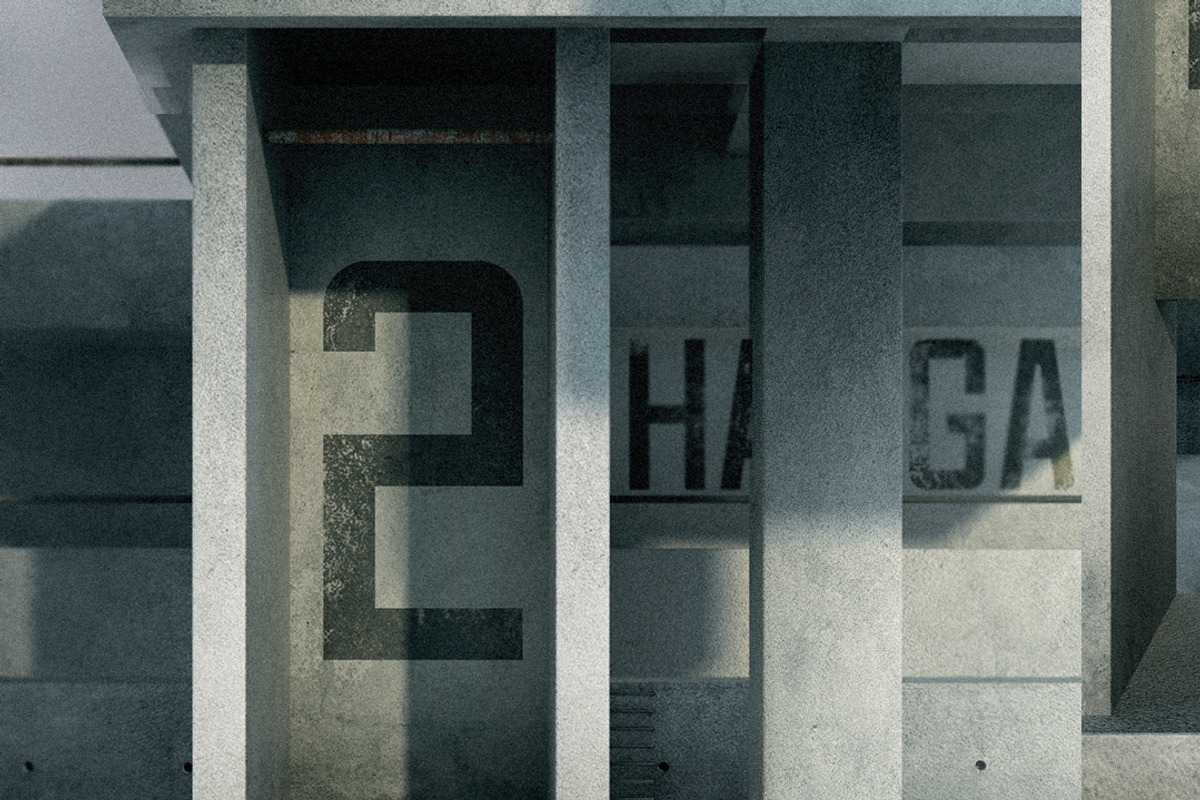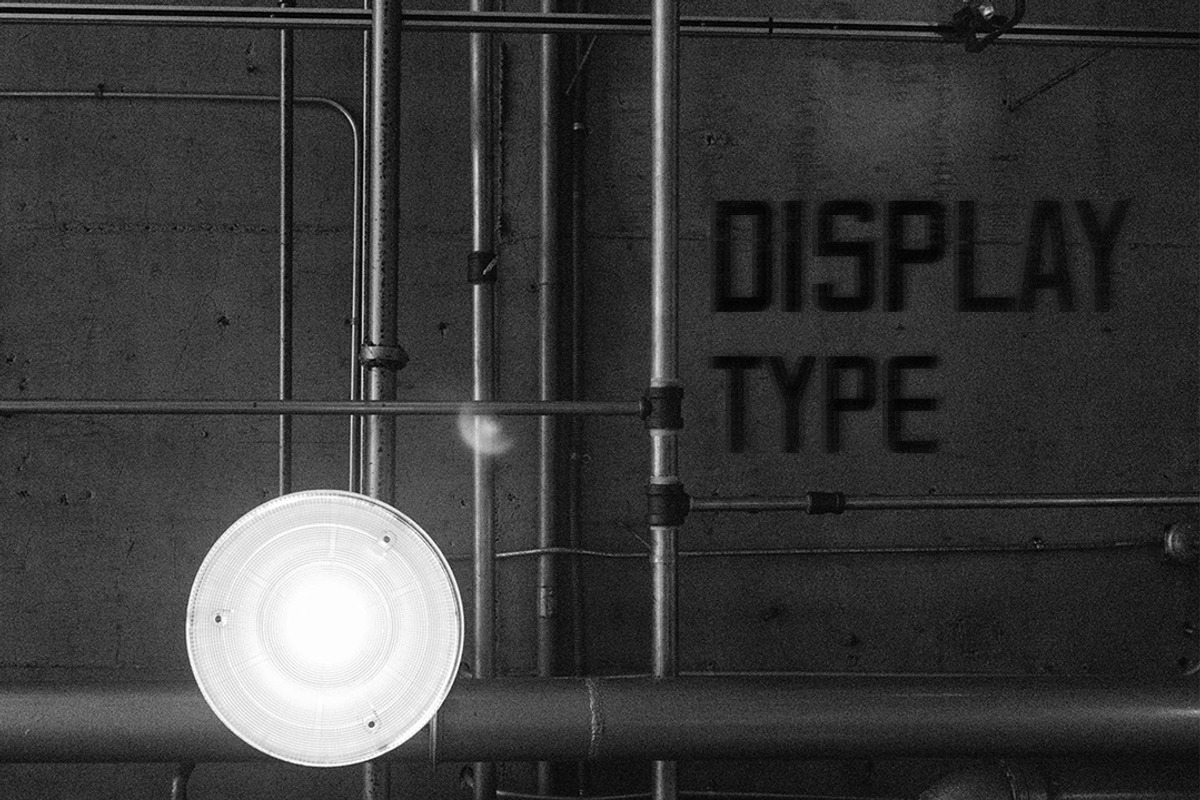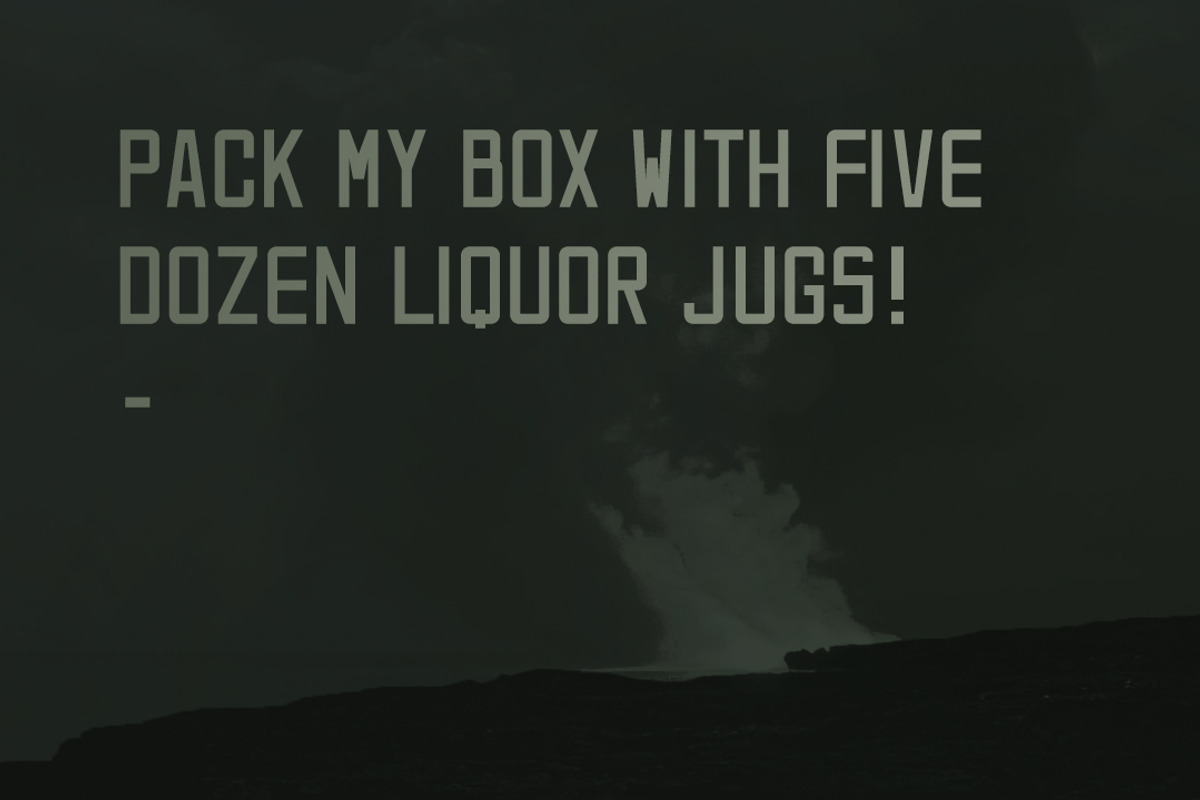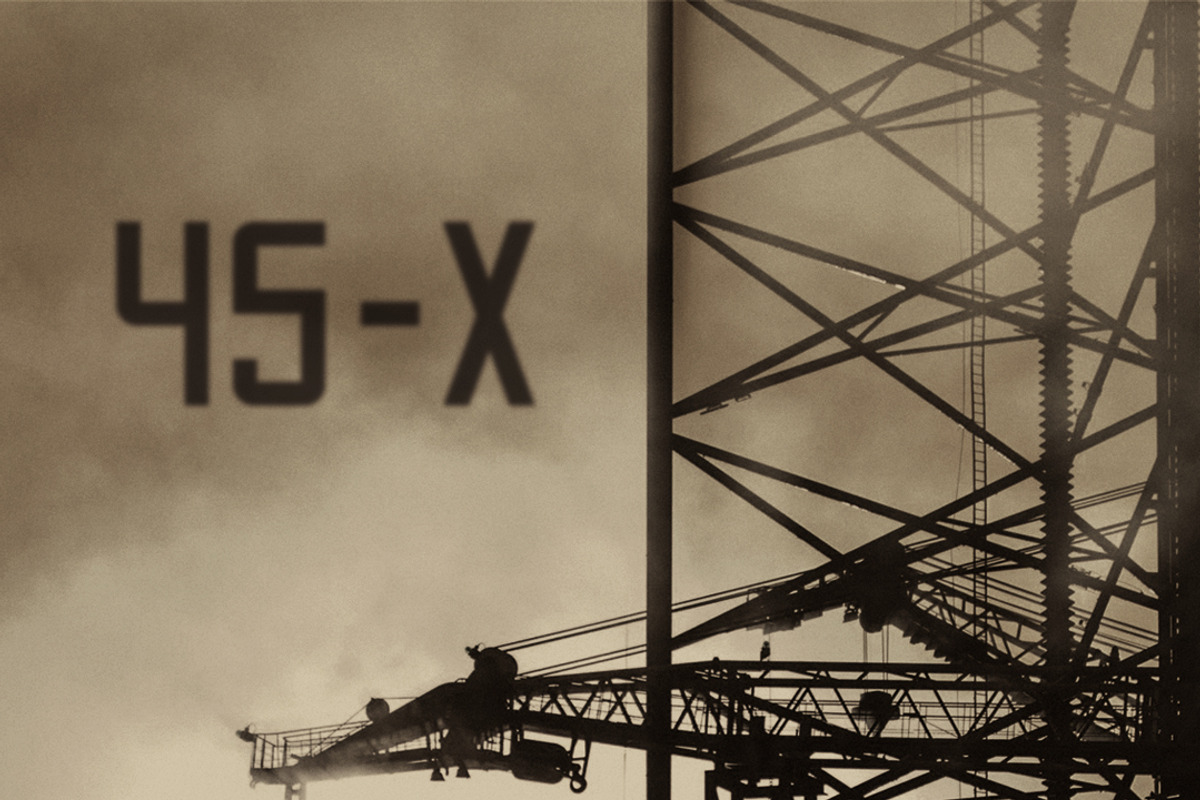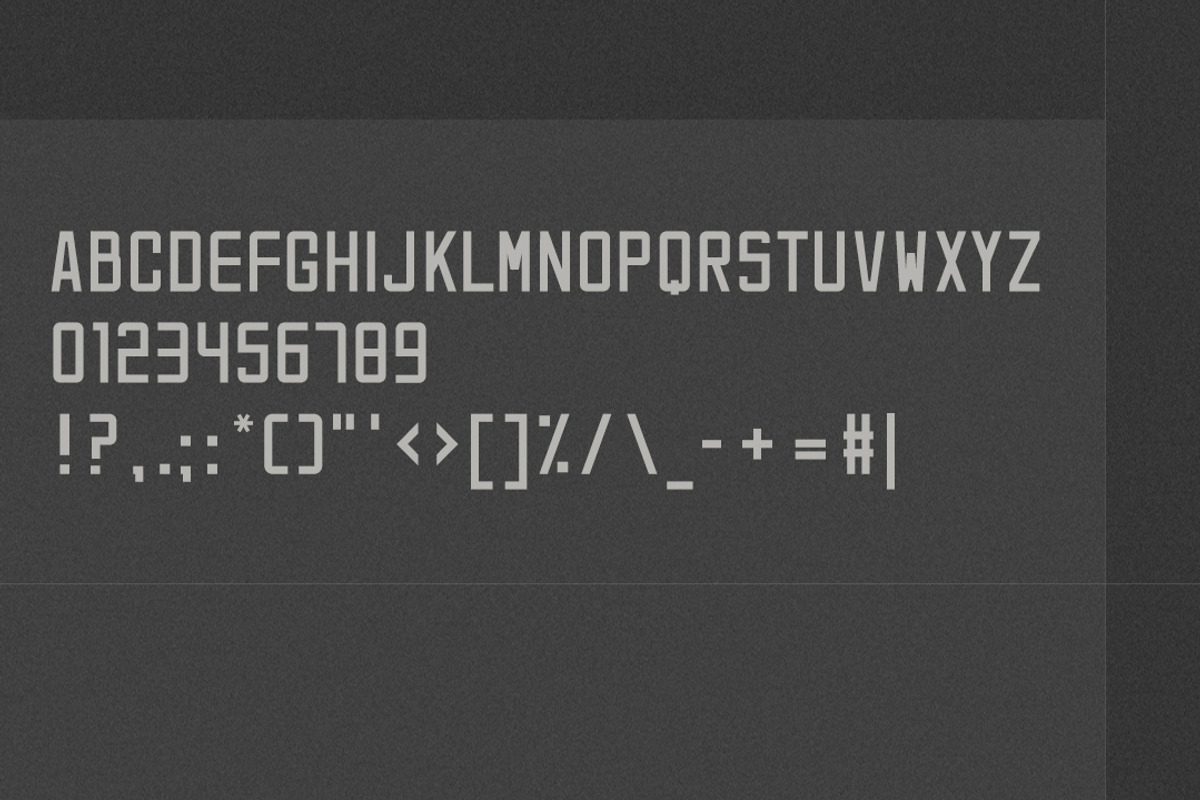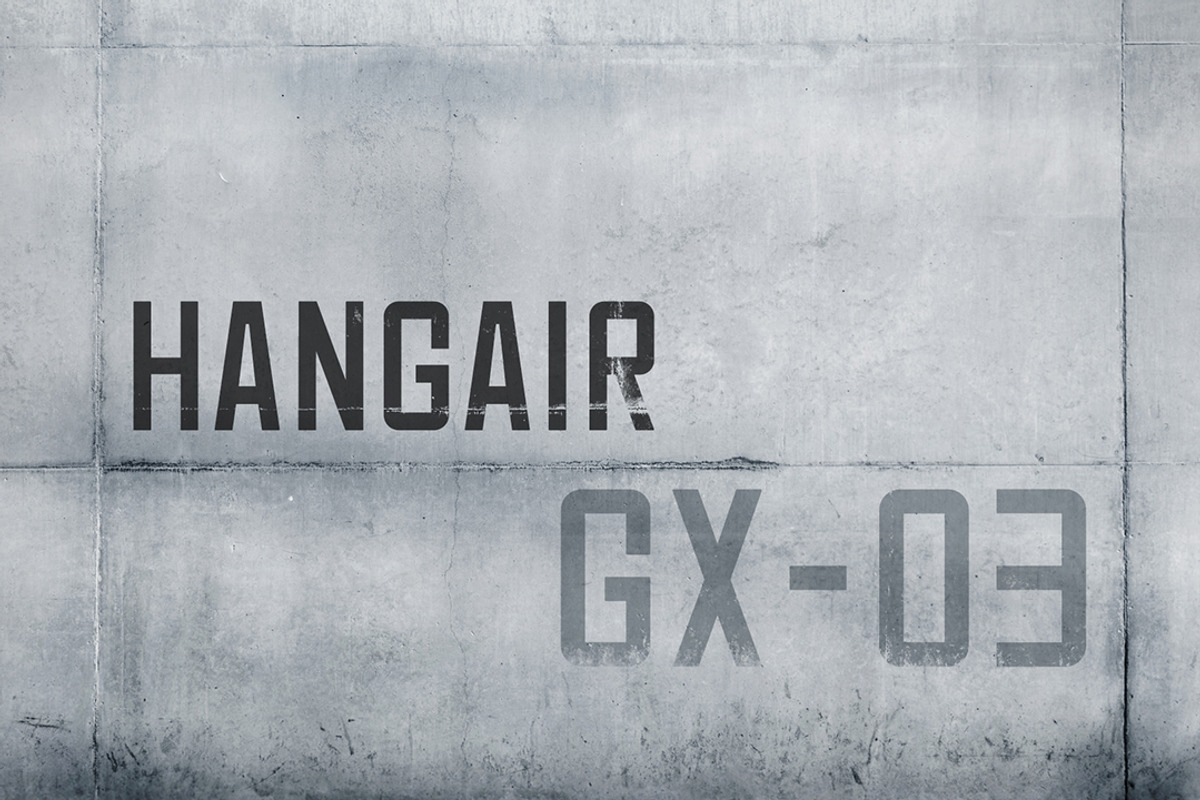
Hangair Font
Hangair is an upper case display type which has been meticulously kerned with pairs.
Tall, strong and raw, Hangair has a wartime feel with hints of a cold industrial touch.